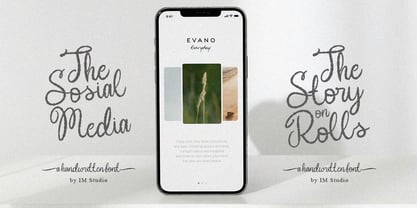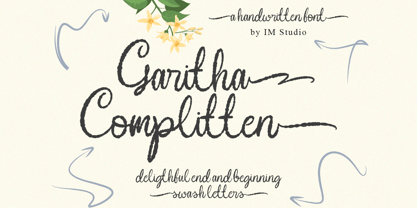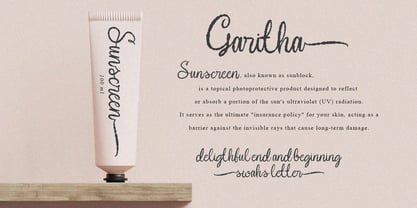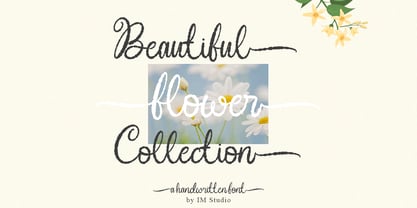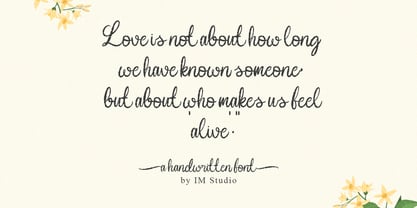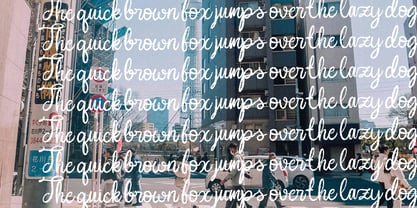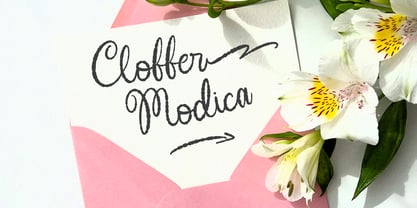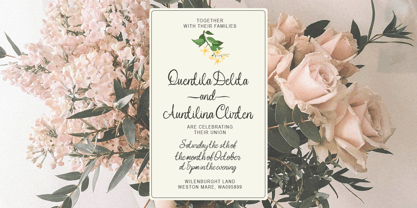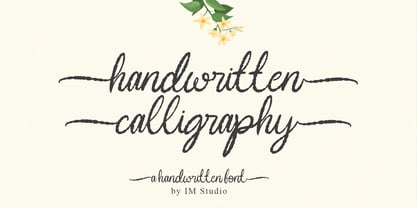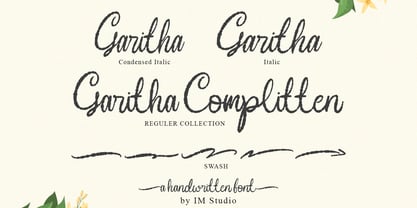
Garitha Complitten
por IM Studio
La familia tipográfica Garitha Complitten fue diseñada por Ikhsan Maulana y publicada por IM Studio. Garitha Complitten contiene 4 estilos y opciones de paquete familiar. Más información sobre esta familia
The Garitha Complitten Family font has been expertly developed. I tried to design a font style where the letters connect naturally while still maintaining the spontaneous character of handwriting. This isn't the kind of font where the letters just stand side by side. I strived to create a sense of movement and authenticity.
This font is available in three styles: Regular, italic, and condensed italic (for a slightly straighter look).
There are several types of swashes included. Attachable swashes: these can be added to both lowercase and uppercase letters. I chose to maintain the original gel ink effect; the swashes won't connect automatically. You can replace them with your preferred version if you wish to add swashes.
Diseñadores: Ikhsan Maulana
Fundición: IM Studio